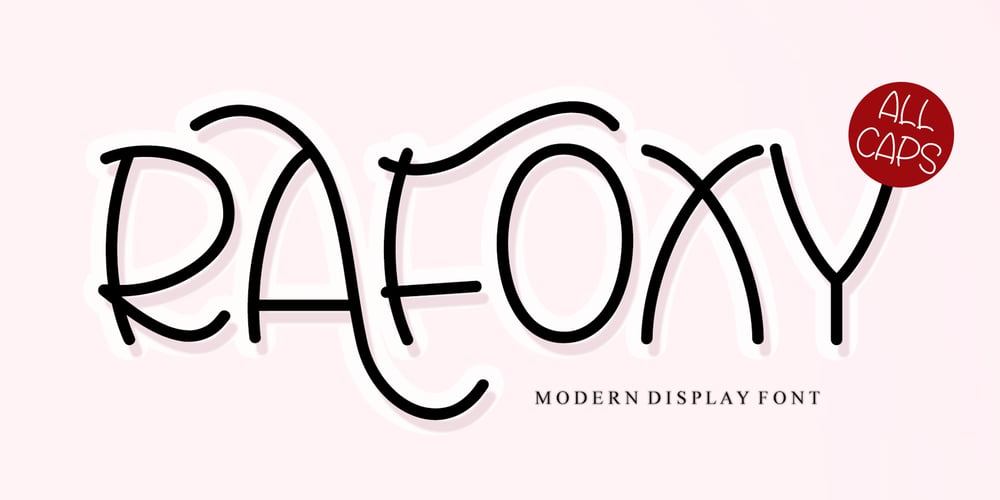
Rafoxy
Rafoxy font
Rafoxy Font Family was designed by Ahmad Afandi and published by Letterafandi Studio. Rafoxy contains 2 styles and family package options. Introducing Rafoxy – a captivating display font radiating fun and frolic. This font shines in the realms of branding, turning logos into vivid expressions, and breathing a lively soul into crafting projects. Imbued with a spark of creativity, Rafoxy takes your design journey on a unique and enthralling path.